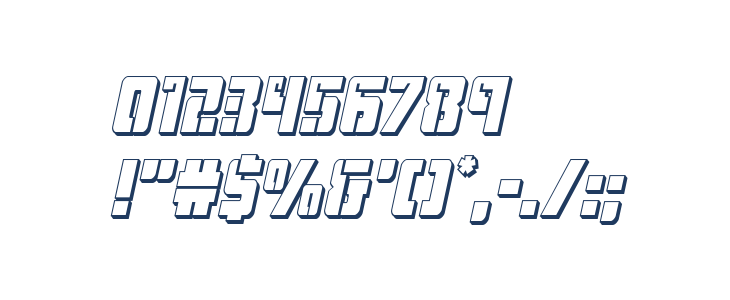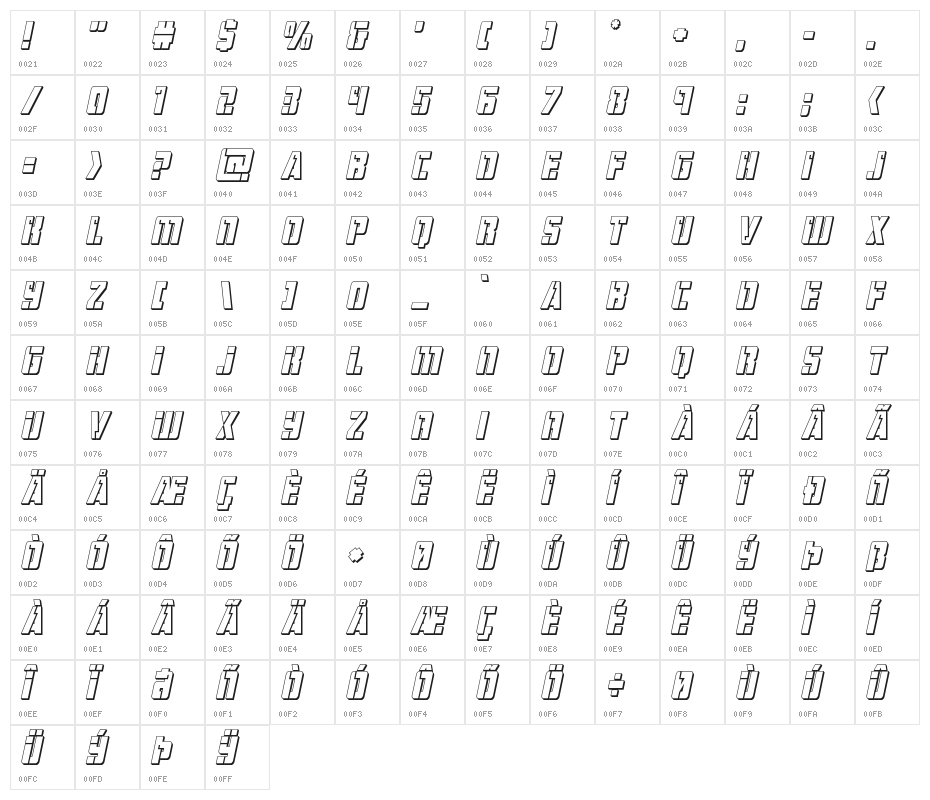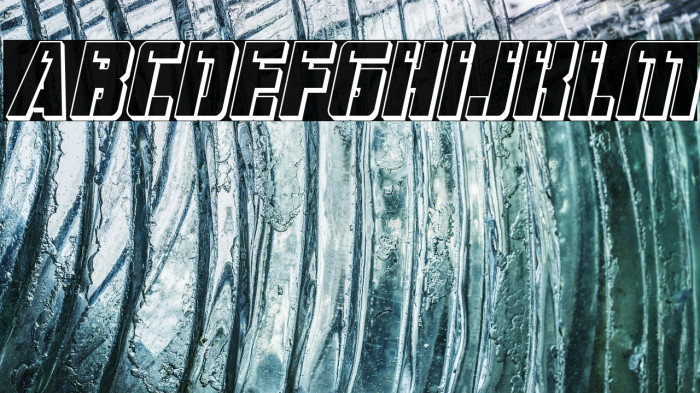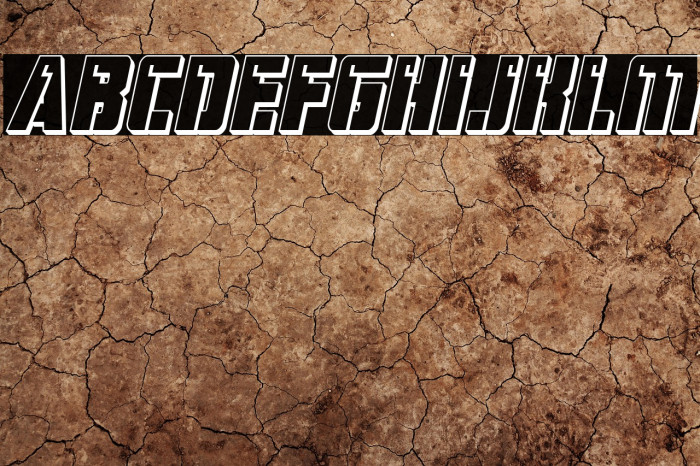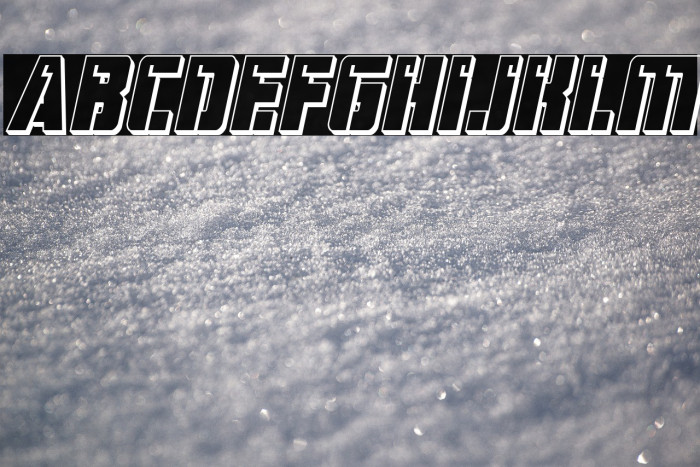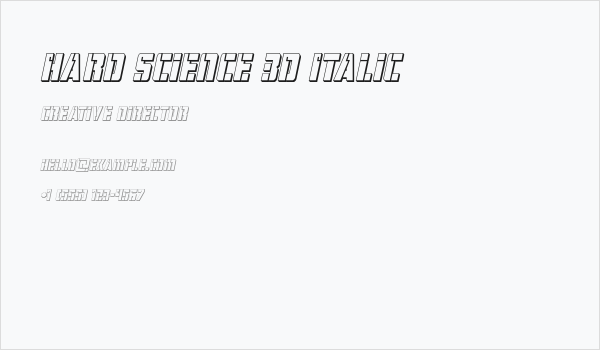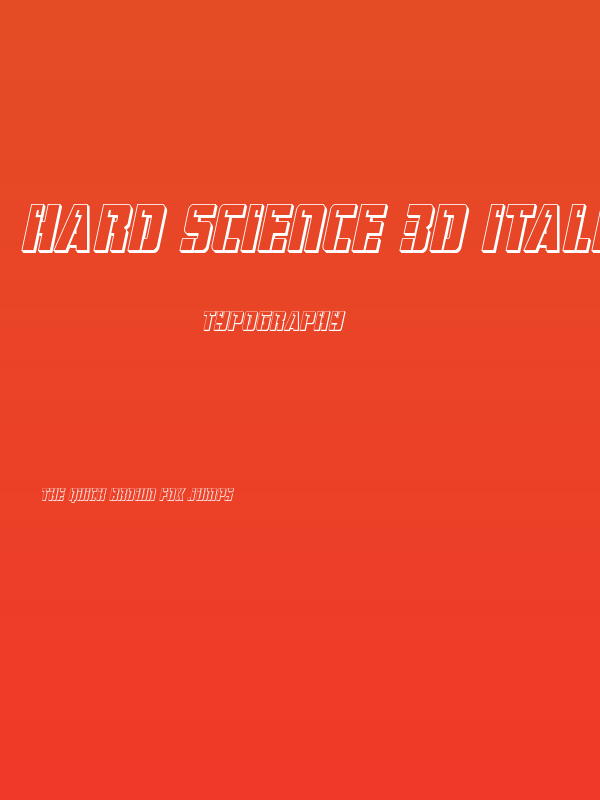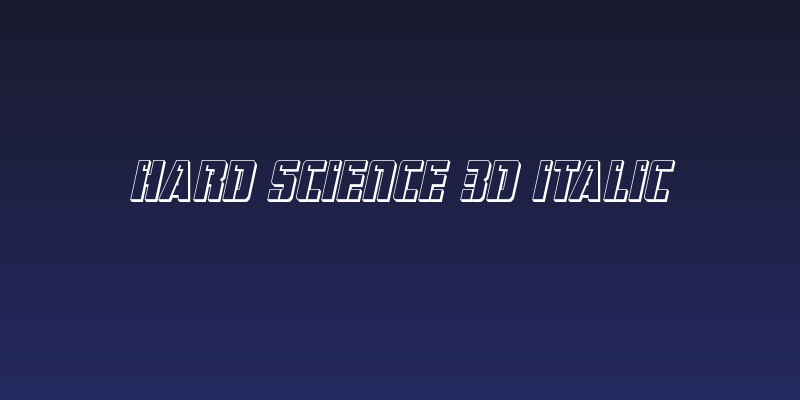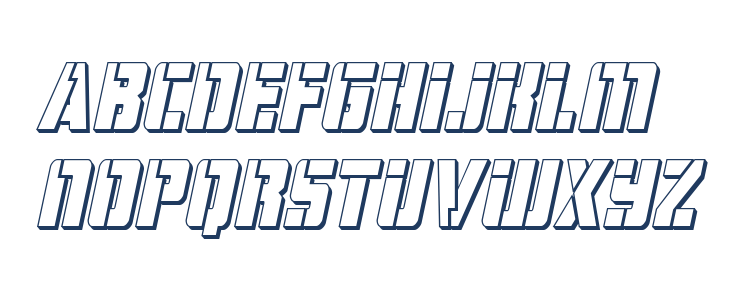
Hard Science 3D Italic Font
Hard Science 3D Italic Description
This font features a bold, three-dimensional design with a strong italic slant, giving it a dynamic and futuristic appearance. The characters are outlined, creating a hollow effect that enhances the 3D illusion. The geometric shapes and sharp angles contribute to its modern and technical feel. Each letter and number is distinct, with consistent spacing and alignment, making it suitable for impactful and eye-catching designs. The font's unique style is ideal for projects that require a sense of movement and innovation.
| Proposed Projects | Ideal for sci-fi themed posters, video game titles, technology branding, and innovative product packaging. |